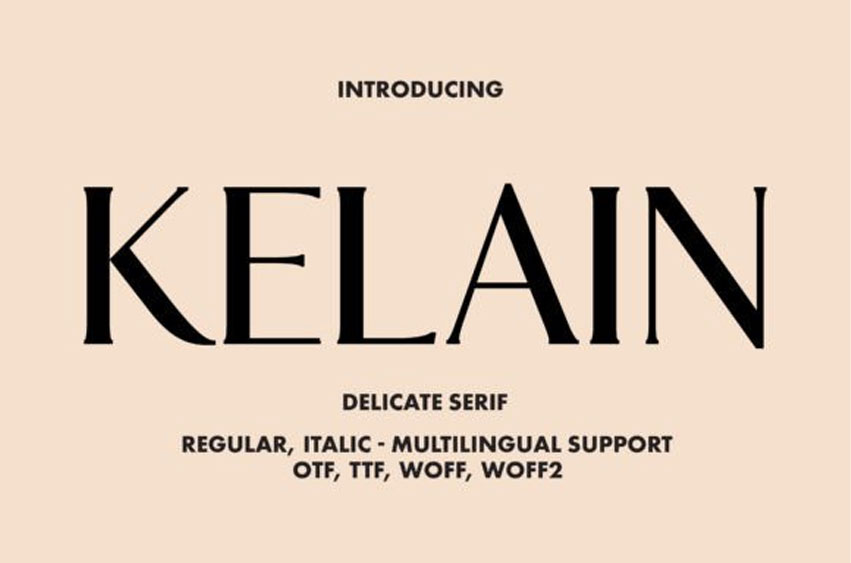
Kelain Font
Kelain Font is a chic and elegant serif typeface that embodies timeless sophistication. Its graceful letterforms and delicate serifs make it perfect for a wide range of design projects, from high-end fashion magazines to luxury brand logos.
With impeccable readability and versatility, KELAIN is the ideal choice for both digital and print applications. Elevate your designs with the refined charm of Kelain, where chic meets elegance in typography.